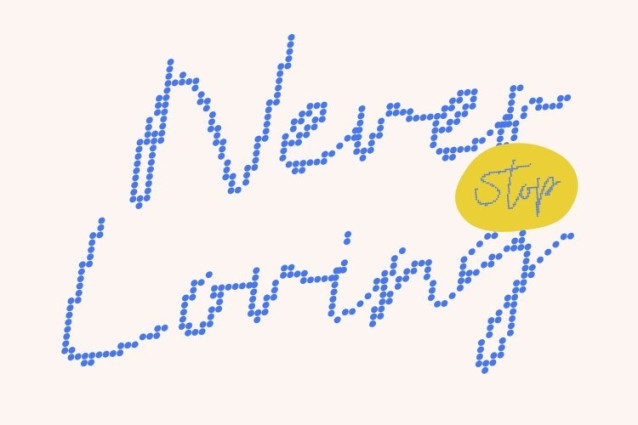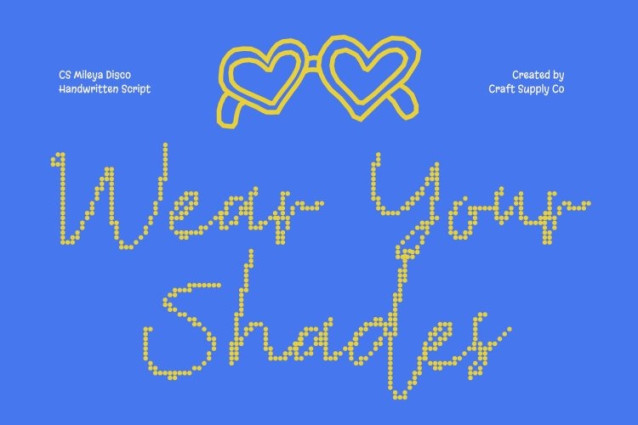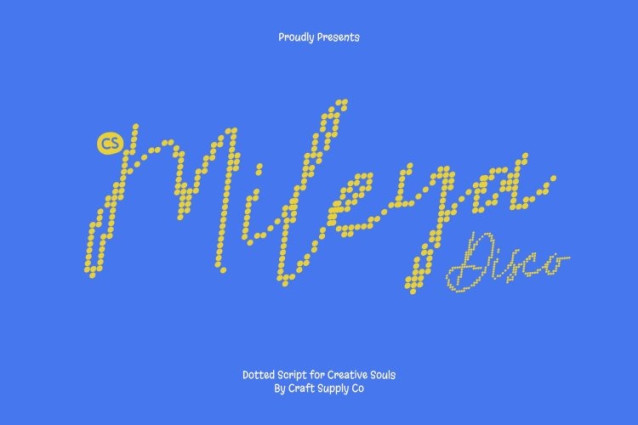
CS Mileya Disco Font
CS Mileya Disco Font – This transforms the graceful, stylish script of into a vibrant, disco-inspired font. Each sweeping curve and flowing connection is enhanced with subtle dot accents, sparkling highlights, or rhythmic star-like touches, evoking the shimmer and motion of a dance floor under colorful lights. The font retains its luxurious sophistication while radiating energy, fun, and celebratory charm.
Elegant Curves with Playful Sparkle
The refined calligraphic strokes maintain their modern, flowing elegance, but disco-style embellishments add a lively bounce to every word. Text gains visual rhythm and movement, reflecting the playful energy of music and lights. This combination of chic script and party sparkle makes your designs feel festive without losing class.
Perfect for Glamorous, Cheerful Designs
This font shines in wedding invitations, fashion branding, event materials, or lifestyle visuals that want a touch of glamour and joy. It’s ideal for layouts that balance elegance with fun, allowing text to sparkle and draw attention while staying readable and sophisticated.
Versatile for Luxury and Festive Projects
From high-end editorial spreads to social media graphics and boutique packaging, this font adapts seamlessly. Every word dances with style, giving your projects a lively, sparkling personality that combines romance, contemporary refinement, and the energy of a disco celebration.